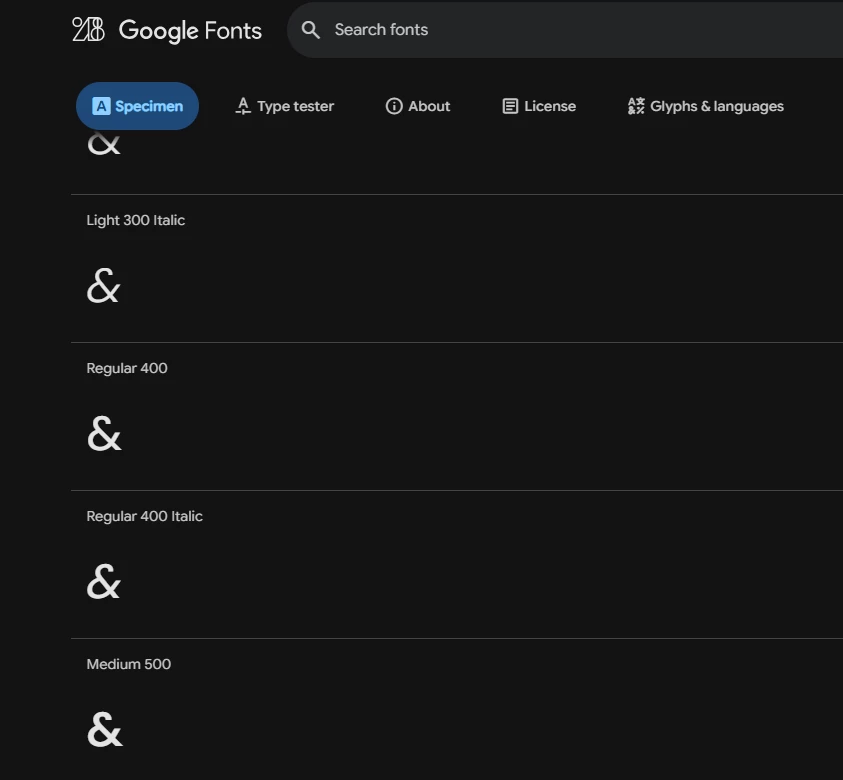
Poppins font & not correctly renter in figma
1st image is google font page, but in figma ‘&’ is apper in a diffrent way (see 2nd image), earlier it was correct.